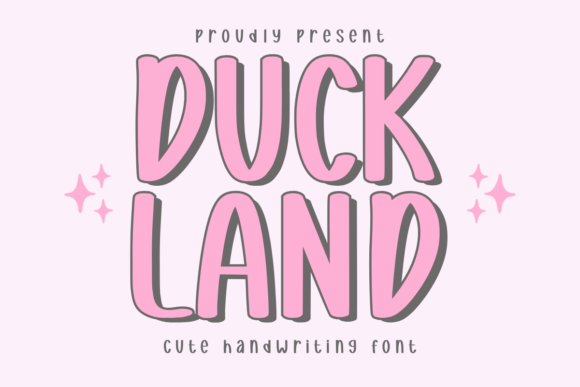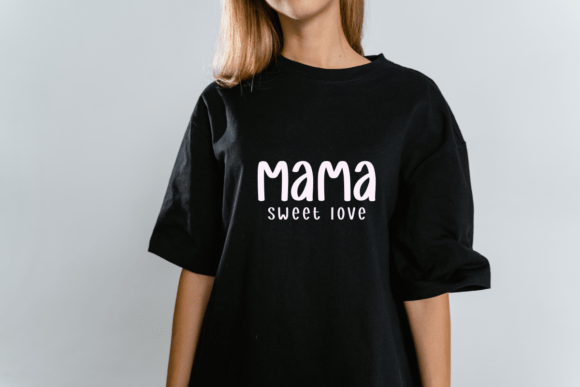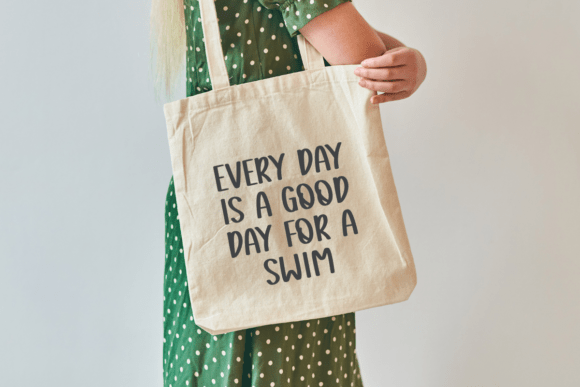
Find Your Inner Child with the Quirky Charm of Duck Land Font
Remember the joy of doodling in your favorite notebook as a kid? The freedom to let your imagination run wild and create anything you desired? That carefree spirit is exactly what the Duck Land Font embodies – a charming and cute sans serif font designed to add a touch of playful warmth and personality to your creative projects.
Perfect for designs that aim to be cheerful and approachable, the Duck Land Font shines in a variety of applications, from delightful children’s book illustrations and engaging social media graphics to adorable party invitations and unique branding for sweet ventures. As a valuable addition to any designer’s toolkit, the Duck Land Font ensures your message is not just seen, but felt with an endearing touch.
Embracing its sweet simplicity, you can create designs that truly stand out and bring a smile to your audience’s faces. With its friendly aesthetic and clear readability, the Duck Land Font is an ideal choice for designers seeking to add a touch of whimsy and personality to their work.
Duck Land Font Key Features
- Unique Characteristics: The Duck Land Font features a unique, hand-drawn design with a playful and whimsical feel, making it perfect for children’s books, educational materials, and other projects that require a fun and engaging tone.
- Character Set: The font includes a comprehensive character set, including uppercase and lowercase letters, numbers, punctuation marks, and special characters, ensuring that you have everything you need to create professional-looking text.
- Font Styles: The Duck Land Font includes 3 different font styles: Regular, Bold, and Italic, allowing you to add emphasis and variety to your text.
Duck Land Font Review
I recently had the chance to work with the ‘Duck Land Font’, and I must say it’s a unique addition to any design project. ✨ The font’s playful and whimsical nature makes it perfect for children’s books, advertisements, or any other creative endeavor that requires a lighthearted touch.
One of the standout features of ‘Duck Land Font’ is its versatility. ✨ It comes in a range of weights and styles, allowing designers to experiment with different combinations to achieve the desired effect. Additionally, the font is highly customizable, making it an excellent choice for logos, headings, and other prominent design elements.
- ⚠️ The font’s bold and italic styles can sometimes appear inconsistent, which may require additional adjustments to maintain a cohesive design.
- ⚠️ The font’s larger point sizes can appear a bit distorted, which may affect readability in certain contexts.
Overall, I found ‘Duck Land Font’ to be a solid choice for designers looking to add a playful touch to their projects. While it may have some limitations, the font’s versatility and customizability make it a valuable asset in the right situations.
Getting the Most Out of Duck Land Font
For best results, use Duck Land Font for titles and headings, as it is designed to be bold and eye-catching.
Experiment with different font sizes and colors to create visual interest and hierarchy in your design.
Duck Land Font is perfect for:
Comparison to Duck Land Font: While Duck Land Font is playful and fun, Playfair Display is more refined and sophisticated. Playfair Display is better suited for serious and high-end designs, whereas Duck Land Font is more suitable for casual and creative projects.
The recommended font size for using Duck Land Font is between 12pt and 24pt. This range provides optimal legibility and visual appeal. However, you can experiment with different font sizes to achieve the desired effect for your design.